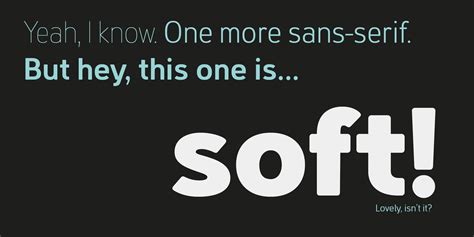
Iphilly Sans Font: A Comprehensive Guide
Let’s dive deep into the world of Iphilly Sans Font ! This guide will explore everything you need to know about this unique typeface. Whether you’re a designer looking for the perfect font for your next project or just a typography enthusiast, you’ve come to the right place. We’ll cover its history, characteristics, usage, and even where to find it. So, grab your coffee, get comfortable, and let’s get started!
What is Iphilly Sans Font?
Iphilly Sans Font , at its core, is a sans-serif typeface. This means it lacks the small decorative strokes, or serifs, that are commonly found on fonts like Times New Roman. Sans-serif fonts are generally considered to be more modern and cleaner in appearance, making them ideal for a wide range of applications, especially in the digital realm. When we talk about Iphilly Sans Font , we’re often referring to a specific design or style that gives it a distinctive personality. This personality is what sets it apart from other generic sans-serif fonts like Arial or Helvetica. Think of it as the difference between a tailored suit and an off-the-rack one – both serve the same basic purpose, but one has a unique fit and style that makes it stand out.
But what specifically makes Iphilly Sans Font unique? Often, it comes down to subtle details in the letterforms. The stroke weights, the curves, the angles – all these elements contribute to the overall feel. Some Iphilly Sans Font variations might have a slightly condensed appearance, making them ideal for headlines or titles where space is limited. Others might be wider and more open, making them easier to read in longer blocks of text. The beauty of a well-designed font lies in its versatility, and Iphilly Sans Font aims to provide just that. Designers choose Iphilly Sans Font to convey a sense of modernity, clarity, and approachability. It’s a font that says, “I’m clean, I’m efficient, and I’m easy to understand.”
In a world saturated with generic fonts, Iphilly Sans Font offers a breath of fresh air. It’s a font that’s been crafted with care and attention to detail, resulting in a typeface that’s both functional and aesthetically pleasing. Its clean lines and modern feel make it a versatile choice for a wide range of design projects, from websites and apps to print materials and branding. If you’re looking for a font that will help your designs stand out from the crowd, Iphilly Sans Font is definitely worth considering. It’s a font that’s designed to be both readable and visually appealing, making it a great choice for any project where you want to make a strong impression.
History and Development
Delving into the history of Iphilly Sans Font can be like tracing the origins of a local legend. While it may not have the centuries-long lineage of some classic typefaces, its story is often tied to the specific design project or the creative vision of its creator. Unlike fonts developed by large foundries with extensive documentation, Iphilly Sans Font might have emerged from a smaller studio or even an independent designer. This makes its history all the more intriguing, often requiring a bit of detective work to uncover its roots.
The development of Iphilly Sans Font likely involved a process of careful refinement and iteration. The designer would have started with a basic concept, sketching out letterforms and experimenting with different weights and styles. They would have paid close attention to the spacing and kerning, ensuring that the letters worked together harmoniously. And they would have tested the font in various contexts, making sure it was legible and visually appealing in both print and digital formats. This iterative process is crucial to creating a font that is both functional and aesthetically pleasing.
The font’s creation may have been driven by a specific need. Perhaps a local business wanted a unique typeface to represent its brand, or a designer sought a font that perfectly captured the spirit of a particular project. Regardless of the motivation, the history of Iphilly Sans Font is likely intertwined with the creative process and the desire to create something new and original. The unique characteristics of Iphilly Sans Font , such as its specific letterforms and overall style, would have been carefully considered to ensure they aligned with the intended purpose. If the font was created for a tech company, for example, it might have a more geometric and modern feel. If it was created for a more traditional business, it might have a slightly warmer and more approachable feel.
As Iphilly Sans Font gained popularity, it may have undergone further revisions and updates. New weights and styles could have been added, and the font could have been optimized for different platforms and devices. This ongoing development would have ensured that the font remained relevant and useful over time. The font’s journey from initial concept to a polished and widely used typeface is a testament to the skill and dedication of its creator. The history of Iphilly Sans Font is a story of creativity, innovation, and the pursuit of typographic excellence. So next time you see Iphilly Sans Font in use, take a moment to appreciate the story behind it.
Key Characteristics
Understanding the key characteristics of Iphilly Sans Font is essential for determining when and how to use it effectively. As a sans-serif typeface, it lacks the decorative serifs found on fonts like Times New Roman, giving it a clean and modern appearance. However, what truly sets Iphilly Sans Font apart are its unique design elements. Look closely, and you’ll notice subtle details that contribute to its overall personality.
One crucial aspect is its letterform design . The specific shapes of the letters, the angles of the strokes, and the curves all play a role in creating the font’s distinctive look. Some Iphilly Sans Font variations might have a slightly geometric feel, with sharp angles and precise lines. Others might be more humanist, with softer curves and a more organic appearance. These subtle variations can have a significant impact on the overall impression the font conveys. The x-height , which is the height of the lowercase letters, also contributes to the font’s readability and visual impact. A larger x-height can make the font appear more open and legible, especially in smaller sizes.
Stroke weight is another critical characteristic. The thickness of the lines that make up the letters can range from thin and delicate to bold and impactful. A lighter stroke weight can give the font a more elegant and refined appearance, while a heavier stroke weight can make it stand out and demand attention. Different weights within the Iphilly Sans Font family allow for versatility in design, enabling you to create visual hierarchy and emphasize key elements. Spacing and kerning are also important considerations. The space between letters and words affects the overall readability and visual appeal of the text. Well-kerned fonts have consistent and balanced spacing, ensuring that the letters flow smoothly together.
Finally, consider the overall style and personality of Iphilly Sans Font . Is it modern and minimalist, or more friendly and approachable? Does it have a serious and professional feel, or a more playful and creative vibe? The answers to these questions will help you determine whether Iphilly Sans Font is the right choice for your project. A well-designed font can evoke a certain mood or feeling, and it’s important to choose a font that aligns with the overall message you’re trying to convey. By understanding these key characteristics , you can make informed decisions about when and how to use Iphilly Sans Font to achieve your desired design goals. Always remember that typography is more than just choosing a font – it’s about creating a visual language that speaks to your audience.
Usage and Applications
The versatility of Iphilly Sans Font makes it suitable for a wide array of design applications. Its clean and modern aesthetic lends itself well to both digital and print media, making it a favorite among designers across various industries. From website headers to body text in brochures, Iphilly Sans Font provides clarity and visual appeal.
In the digital realm, Iphilly Sans Font shines in website design . Its legibility on screens makes it ideal for body text, ensuring that visitors can easily read and digest the content. It’s also a great choice for headings and subheadings, providing a clear visual hierarchy and guiding users through the information. The font’s modern feel can enhance the overall user experience, creating a sense of professionalism and trustworthiness. Furthermore, Iphilly Sans Font is often used in app interfaces , where clarity and readability are paramount. Its clean lines and simple forms make it easy to read on small screens, ensuring that users can navigate the app with ease. The font can also be used to create a consistent and cohesive brand identity across different platforms.
Beyond the digital world, Iphilly Sans Font finds its place in print materials . Its clean design makes it a great choice for brochures, flyers, and posters. The font’s legibility ensures that the message is clear and easy to read, even in smaller sizes. In branding , Iphilly Sans Font is often used to create a modern and sophisticated look. Its versatility allows it to be used in a variety of branding materials, from logos and business cards to letterheads and marketing collateral. The font’s consistent appearance across different platforms helps to create a unified brand identity.
Consider these scenarios. A tech startup might use Iphilly Sans Font for its website and marketing materials, conveying a sense of innovation and modernity. A non-profit organization might use it for its brochures and annual reports, presenting information in a clear and accessible way. A design agency might use it for its branding projects, creating a sophisticated and professional image for its clients. The key is to understand the font’s strengths and use it in a way that complements the overall design. With its versatility and visual appeal, Iphilly Sans Font can be a valuable asset to any designer’s toolkit.
Where to Find and Download
Finding and downloading Iphilly Sans Font is a crucial step once you’ve decided it’s the right fit for your project. However, it’s essential to ensure that you’re obtaining the font from a reputable source to avoid any licensing issues or potential malware. Depending on the origin and licensing of Iphilly Sans Font , there are several avenues you can explore.
Firstly, check established font foundries and marketplaces . Websites like MyFonts, Adobe Fonts, and Fontspring are well-known platforms that offer a wide selection of fonts, both free and commercial. Search for “ Iphilly Sans Font ” on these sites to see if it’s available. These platforms typically provide clear licensing information, ensuring that you’re using the font legally. Many designers also distribute their fonts through their own websites or online portfolios. A simple web search for “ Iphilly Sans Font designer” might lead you to the creator’s website, where you can often find the font available for download.
Before downloading, always review the license agreement . Even if a font is offered for free, it may come with restrictions on its usage. Some free fonts may only be used for personal projects, while others may allow commercial use with attribution. Commercial fonts typically require a purchase, but they often come with broader usage rights and support from the foundry. If you’re unsure about the licensing terms, it’s always best to contact the foundry or designer directly for clarification. Also, be wary of websites that offer free font downloads without clear licensing information. These sites may distribute fonts illegally, or they may bundle them with malware. Stick to reputable sources to protect your computer and avoid legal issues.
Once you’ve downloaded Iphilly Sans Font , you’ll need to install it on your computer. The installation process varies depending on your operating system. On Windows, you can typically right-click on the font file and select “Install.” On macOS, you can open the font file with Font Book and click “Install Font.” After the font is installed, it should be available in your design software, such as Adobe Photoshop, Illustrator, or InDesign. Finding the right font can be a game-changer for your designs. By following these tips, you can confidently find and download Iphilly Sans Font from a reliable source and use it to create stunning visual content. Remember to always respect the licensing terms and support the designers who create the fonts you love.
Alternatives to Iphilly Sans Font
If Iphilly Sans Font doesn’t quite hit the mark for your specific design needs, don’t worry! There are plenty of excellent alternatives available that offer similar qualities while bringing their own unique flair to the table. Exploring these options can help you find the perfect typeface to complement your project.
Helvetica , a classic sans-serif font, is a widely used alternative known for its clean and neutral design. It’s a versatile choice that works well in a variety of contexts, from body text to headlines. Arial , another popular sans-serif font, is similar to Helvetica but with subtle differences in its letterforms. It’s a readily available option that’s often pre-installed on computers, making it a convenient choice for many designers. Open Sans , a humanist sans-serif font, offers a more friendly and approachable feel. Its open letterforms and clean lines make it highly legible, even in smaller sizes. It’s a great choice for websites and apps where readability is paramount. Lato , another humanist sans-serif font, combines a sense of warmth with a clean and modern aesthetic. Its semi-rounded details give it a unique personality, making it a great choice for branding and marketing materials.
For a more geometric alternative, consider Futura . This font is characterized by its sharp angles and precise lines, giving it a distinctly modern and futuristic feel. It’s a great choice for designs that aim to convey a sense of innovation and technology. Montserrat , inspired by the urban typography of Buenos Aires, offers a blend of classic and modern styles. Its bold and geometric letterforms make it a great choice for headlines and display text. When selecting an alternative to Iphilly Sans Font , consider the overall tone and message you want to convey. Do you need a font that’s clean and neutral, or one that’s more expressive and unique? Think about the specific application of the font. Will it be used for body text, headlines, or branding materials? Choose a font that’s legible and visually appealing in the intended context. Don’t be afraid to experiment with different fonts and combinations to find the perfect fit for your project. Typography is a crucial element of design, and the right font can make all the difference in creating a visually stunning and effective design. Remember to always consider the licensing terms and choose fonts from reputable sources to ensure that you’re using them legally and ethically. By exploring these alternatives , you can broaden your typographic palette and discover new and exciting ways to express your creativity.
Conclusion
In conclusion, Iphilly Sans Font is a versatile and modern typeface that can enhance a wide range of design projects. Its clean lines, legibility, and unique characteristics make it a valuable asset for designers seeking a contemporary aesthetic. While its specific history and origins may vary, its impact on visual communication is undeniable. Whether used in website design, branding materials, or print publications, Iphilly Sans Font offers a blend of functionality and visual appeal that can elevate any design. By understanding its key characteristics and exploring its various applications, designers can effectively leverage Iphilly Sans Font to create compelling and engaging visual experiences.
Throughout this guide, we’ve explored the essence of Iphilly Sans Font , from its core definition as a clean, sans-serif typeface to its potential historical roots in smaller design studios or independent creations. We’ve delved into what makes it unique – the subtle nuances in its letterforms, stroke weights, and overall personality that set it apart from generic alternatives. Understanding these characteristics allows designers to make informed decisions about when and how to best utilize this font.
We also discussed the numerous ways in which Iphilly Sans Font can be applied, from enhancing readability in digital interfaces to creating a modern and sophisticated brand identity in print. Its versatility makes it suitable for various industries and design purposes. Moreover, we addressed the importance of finding and downloading the font from reputable sources, emphasizing the need to respect licensing agreements and support the designers who create these valuable tools.
Finally, we explored a range of alternatives to Iphilly Sans Font , recognizing that the perfect typeface depends on the specific needs of each project. By considering factors such as tone, message, and intended application, designers can broaden their typographic palette and discover new and exciting ways to express their creativity. Ultimately, the choice of font is a crucial element of design, and a well-informed decision can significantly impact the success of any visual communication. So, embrace the power of typography and continue to explore the vast world of fonts to find the perfect voice for your designs. Remember to always appreciate the artistry and craftsmanship behind each typeface and to use them responsibly and ethically. With the knowledge gained from this guide, you’re now equipped to confidently use Iphilly Sans Font or its alternatives to create visually stunning and effective designs.